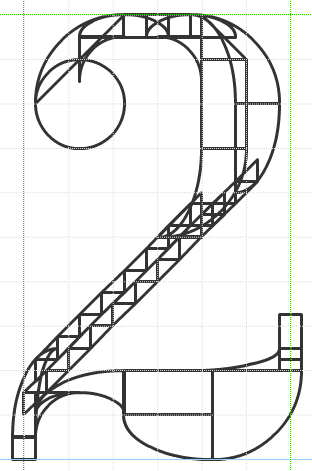
• As the name suggests, I played around to create some classic Didone/Bodoni numbers. One day, I might also come to think of doing the rest of this typeface. ;-)
Ohhhh just OOHHH... those lines are pure magic. How long did it take to make the 2? How much vision, skill and patience? No, don't tell, I already feel inadequate. What mastery. 11/10
Amazing skill and precision. Are these figures for watch dial? 10/10
@Aeolien: Don't feel inadequate. Your fonts are masterful.
@Frodo: Good idea. Here you are:
@laynecom: Cool demo with a stopwatch (Made in USSR). Your figures work really well. The 2 and 5 have so much character.
What a brilliant sample!
Wow, great work and loving that sample!
you could do a full font (with letters) with this
also this font definetly a 73/72
i wonder why only one person rated this a 1/10